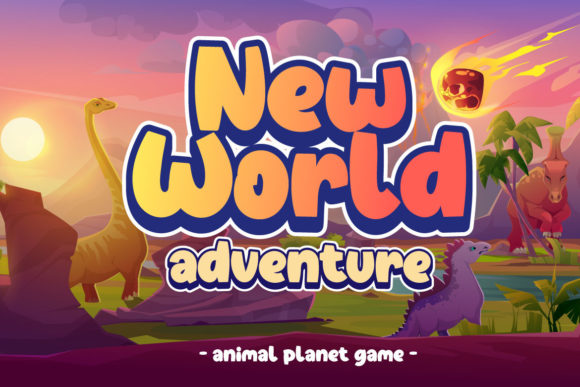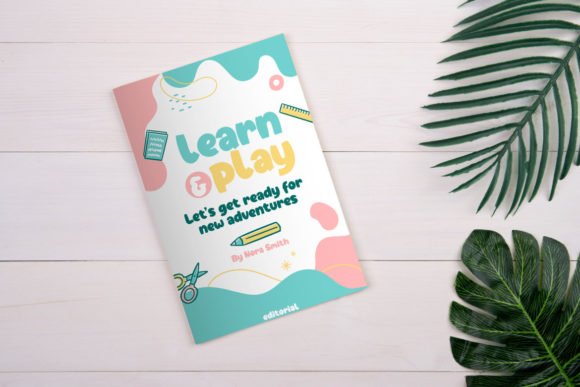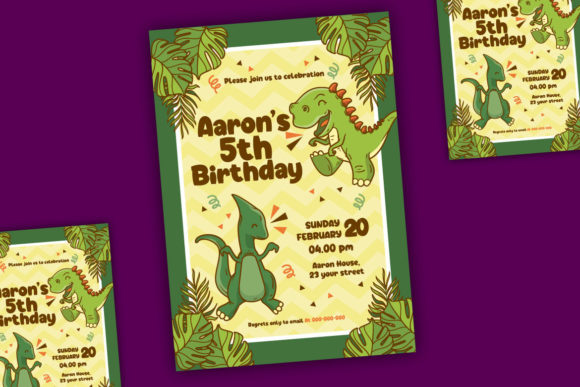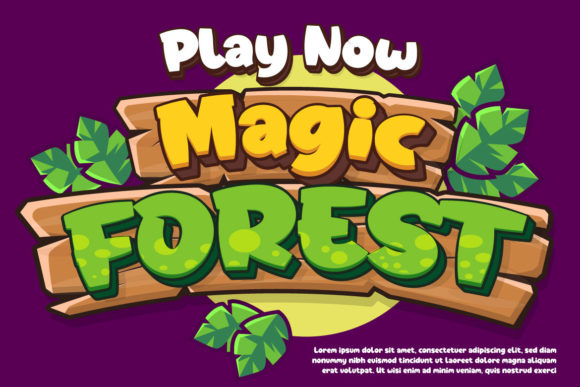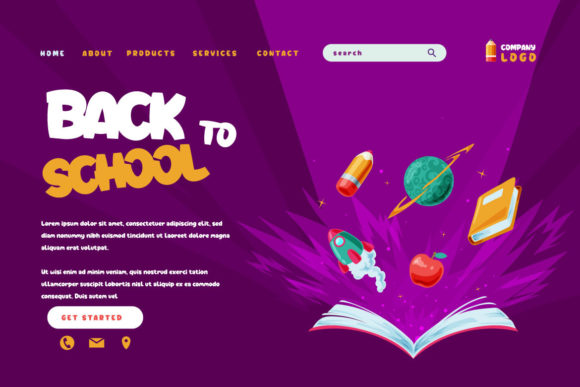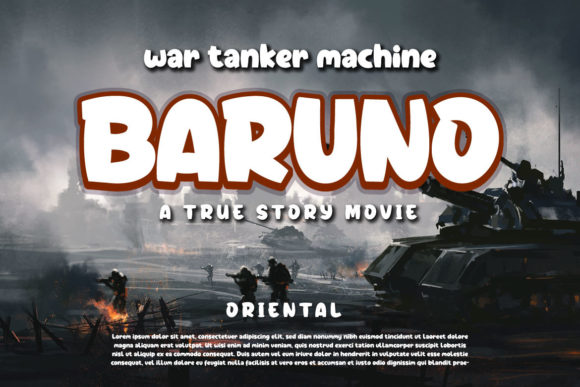
Introduction to Dino Jumps Font
Do you remember the thrill of creating your first project as a child? The excitement of bringing your imagination to life with crayons, markers, and colorful paper? For designers and educators, finding the perfect font to match that sense of joy and authenticity can be a challenge. That’s where the Dino Jumps Font comes in – a bold, playful, and fun display font that’s sure to bring a smile to anyone’s face.
With its transparent background and high-quality design, the Dino Jumps Font is a valuable resource for any creative project. Whether you’re working on a school assignment, designing a children’s book, or creating a fun social media graphic, this font is sure to add a touch of whimsy and personality to your design. And the best part? It’s available for free download, making it an accessible design resource for anyone.
- Unique and playful design suitable for a creative project, such as a children’s book or a cartoon character.
- Comes with a transparent background, making it easy to combine with other design elements.
- Perfect for designers and artists working on a creative project, such as a logo, poster, or infographic, where a fun and playful font is required.
Honest Review: Dino Jumps Font
One of the standout features of this font is its high-quality design, perfect for creating a unique and playful vibe in any creative project. The transparent background is another bonus, allowing for seamless integration with any design.
- ✨ What works well:
- Unique and fun design style
- High-quality typography
- Transparency option for easy integration
- ⚠️ Limitations:
- Only available in a few weights and styles
- No comprehensive character set (limited punctuation and special characters)
Overall, I’m impressed with the Dino Jumps Font. While it may not be suitable for every project, it’s an excellent choice for those looking to add a playful touch to their designs. With a bit of creativity, this font can elevate any creative project to the next level.
The Dino Jumps Font is a versatile design resource that can be used in a variety of creative projects, including social media graphics, posters, flyers, logos, business cards, brochures, presentations, reports, and resumes. Use the font to add a playful, high-quality touch to your designs and make them stand out from the crowd.